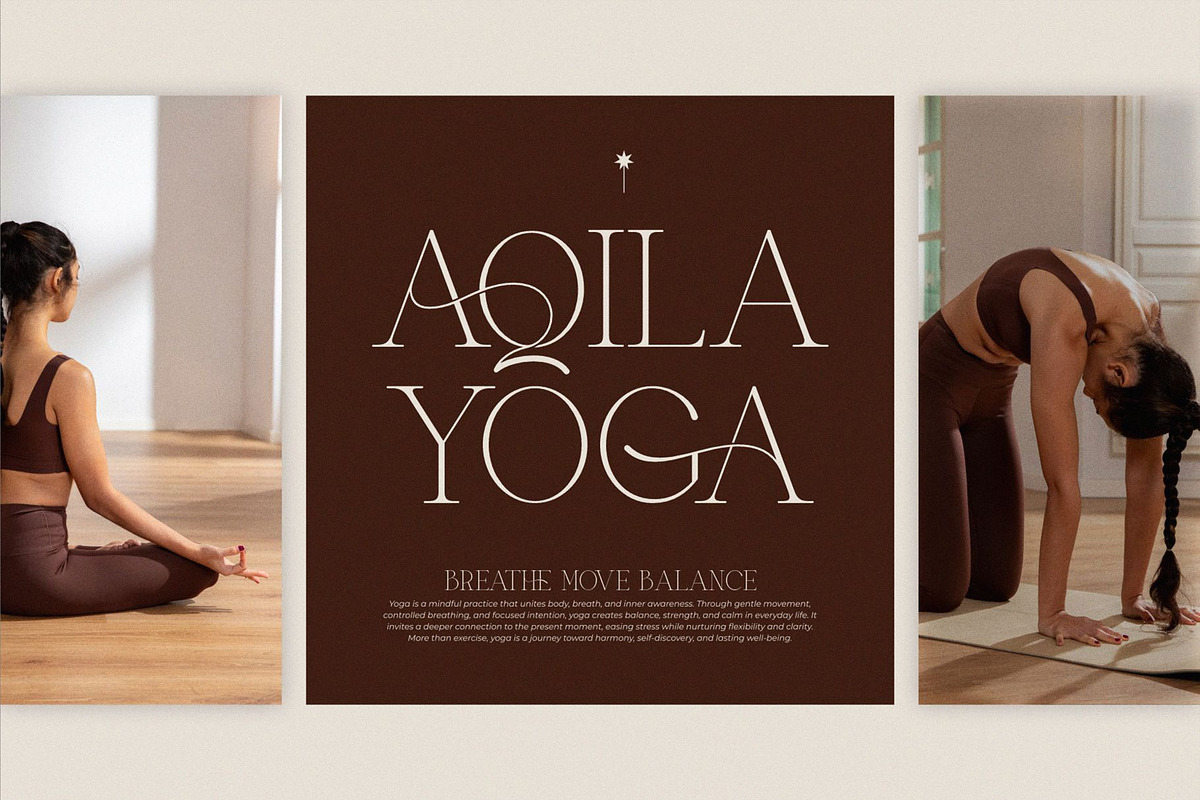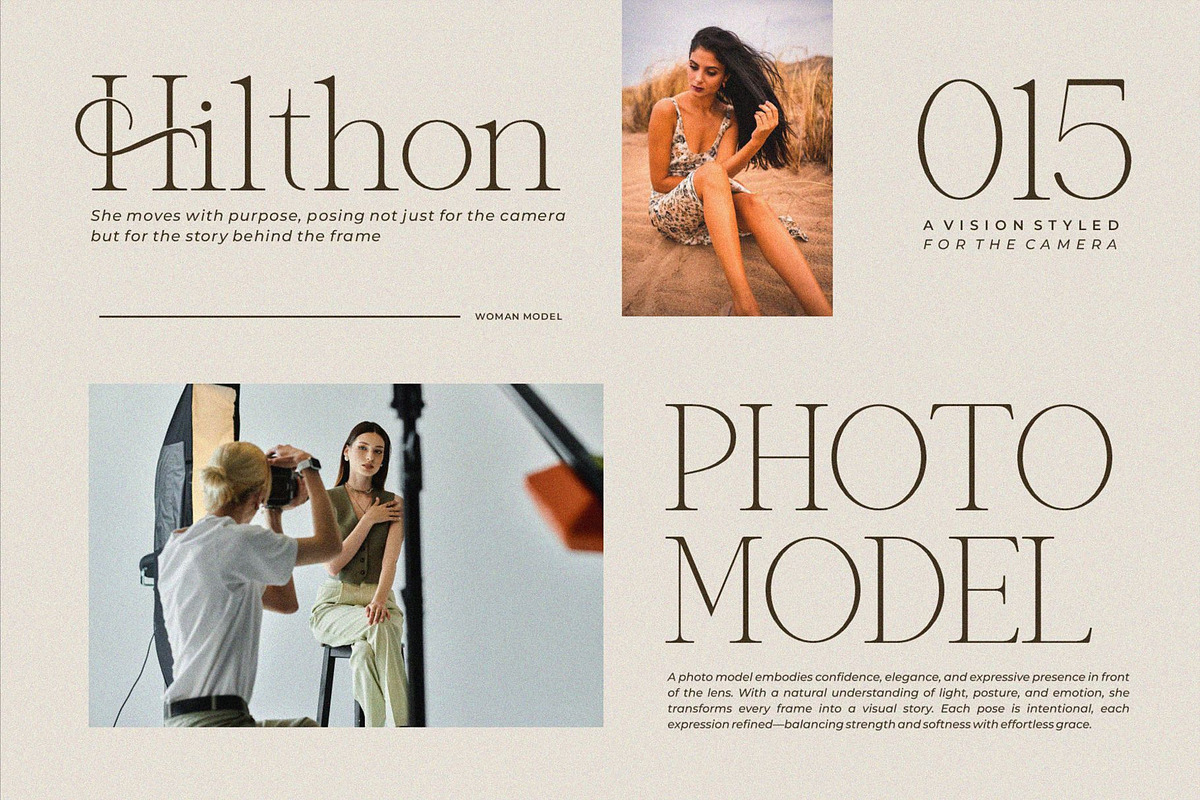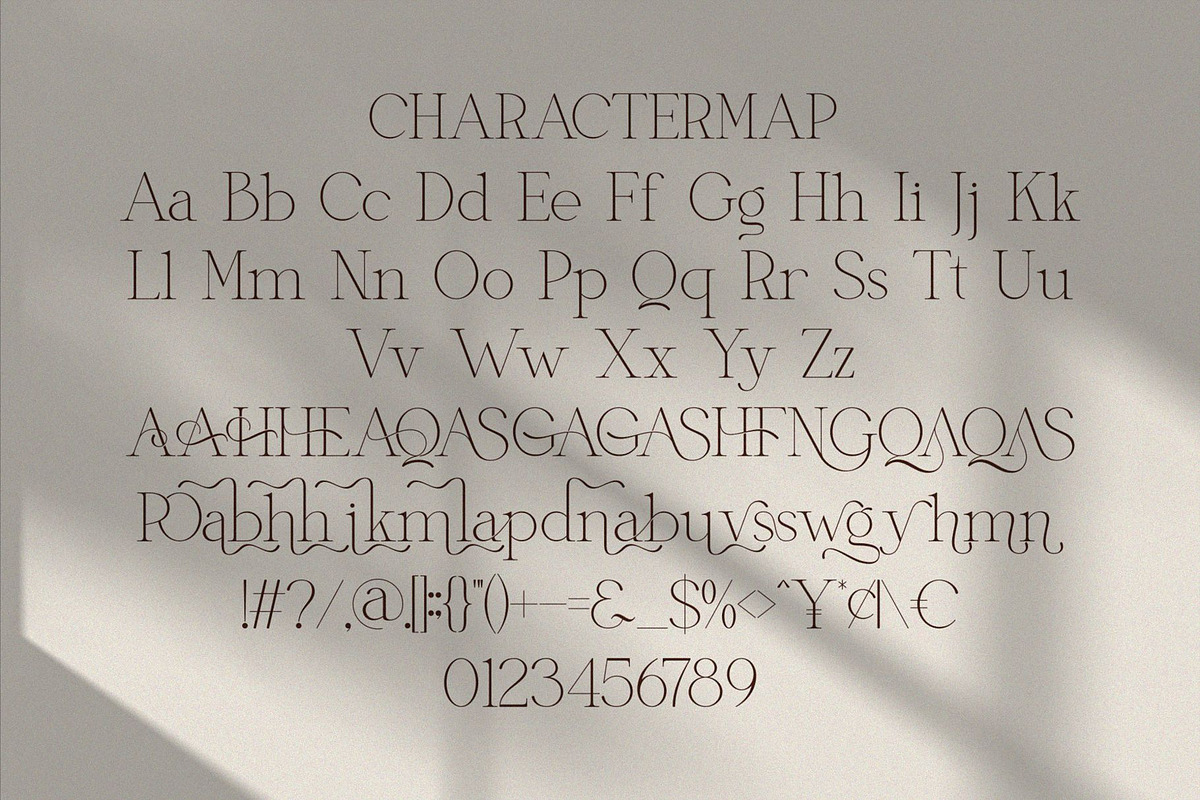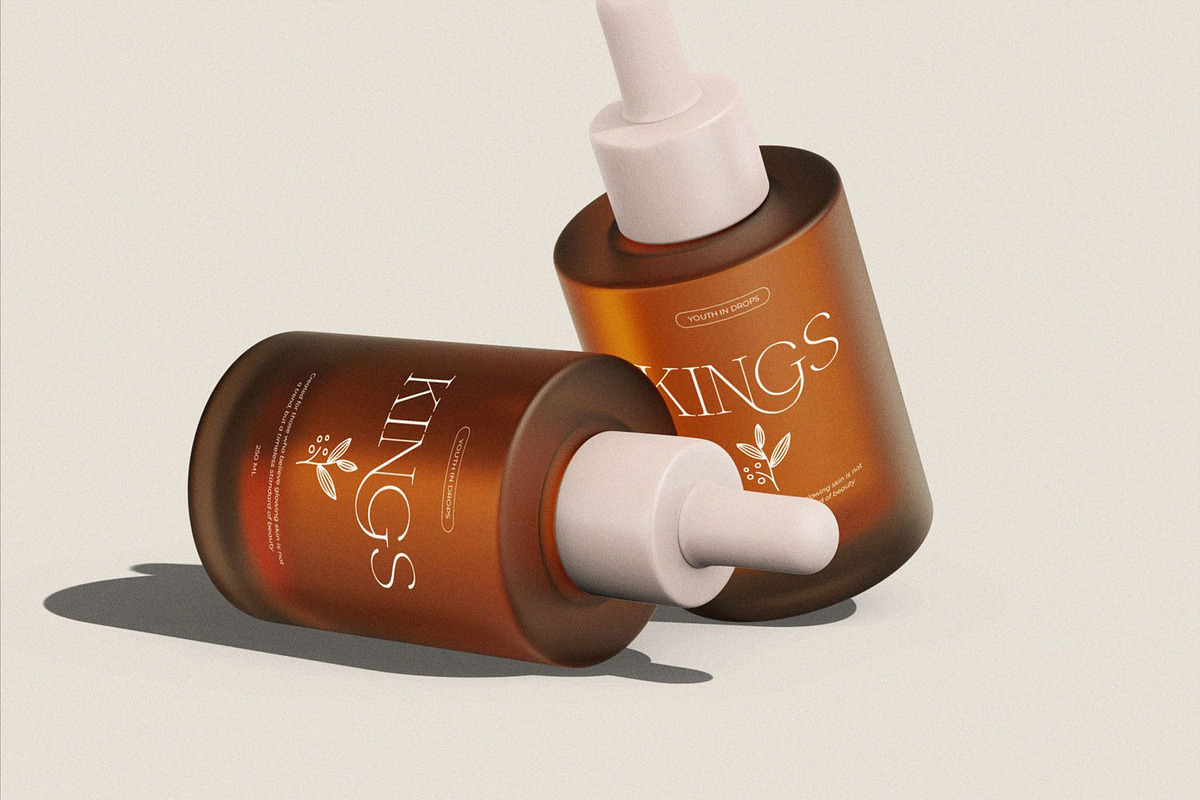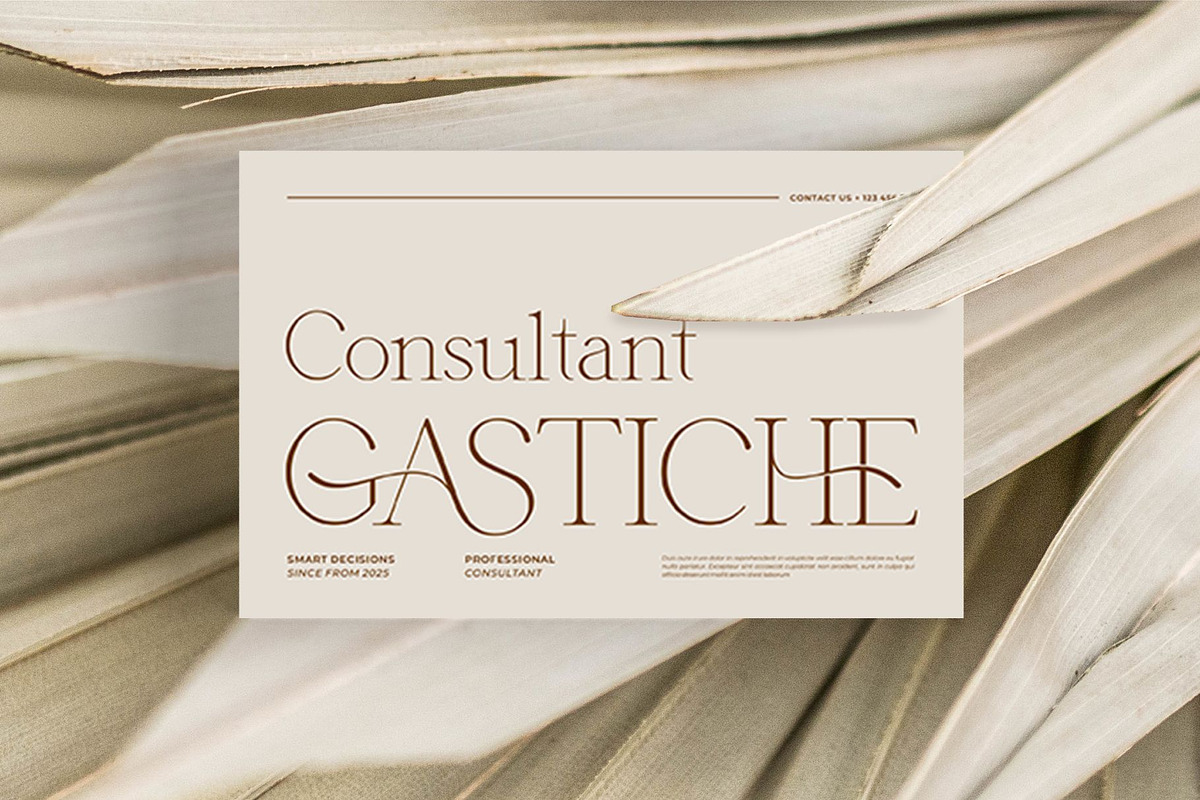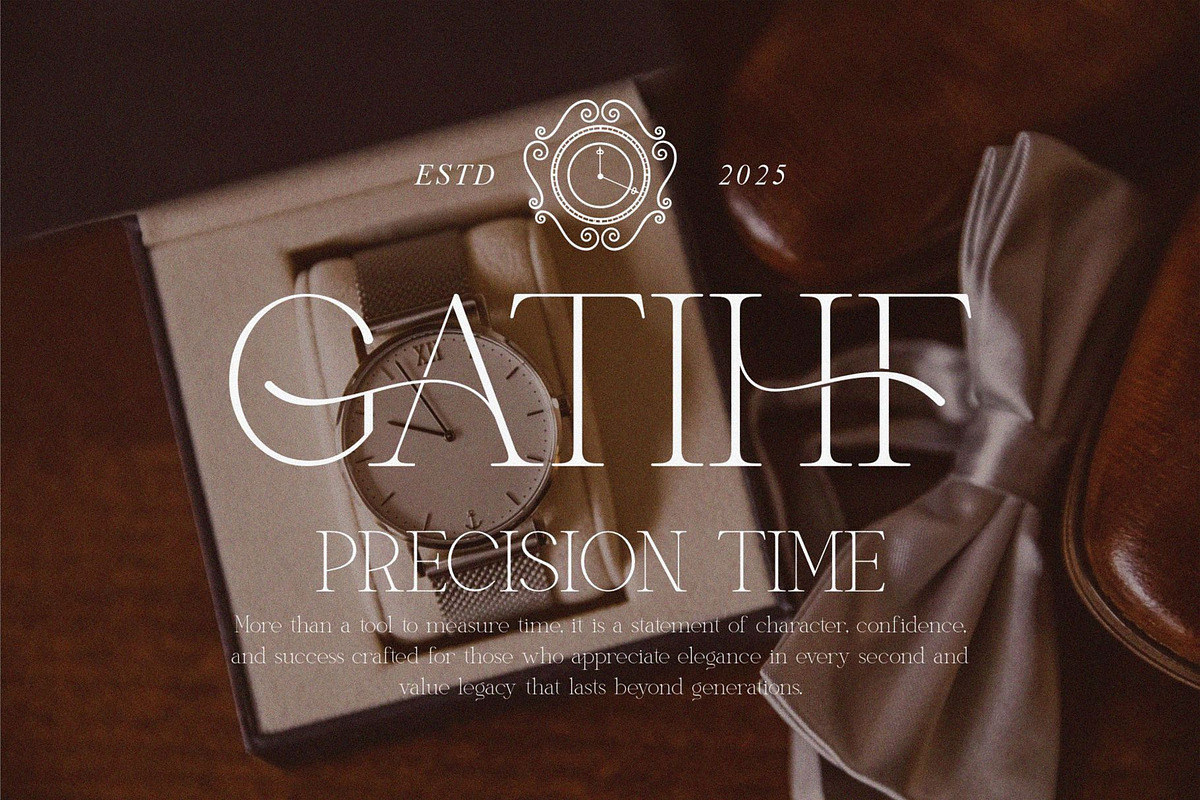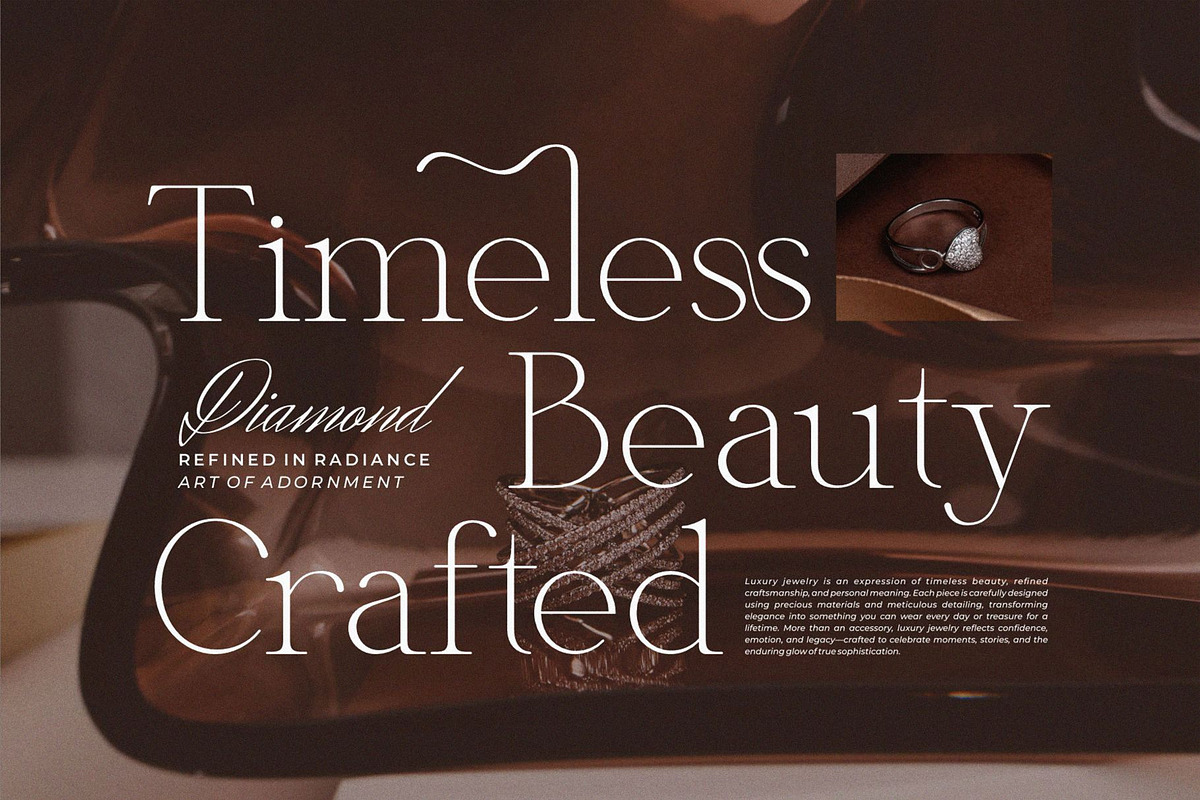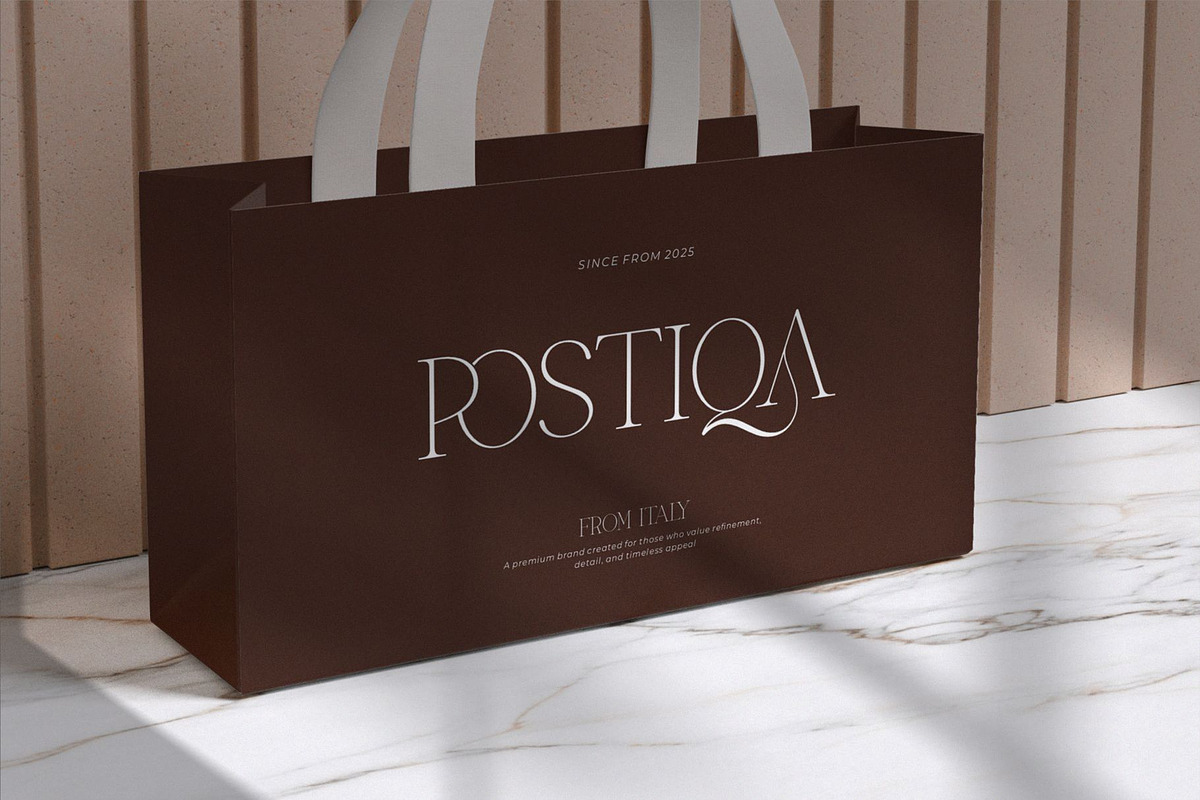
Qariga || Simple Minimalist Serif
Qariga Serif is a simple and minimalist font type for all branding and logo designs. This simple and minimalist Serif font has a beautiful character. This font is suitable for invitation card designs, cool logos, movie titles, movie names, business cards, book titles, brand names, and various other designs. Qariga Serif is a smooth serif font that exudes sophistication and the moment. Its stylish ligatures make this font a perfect partner for any project.